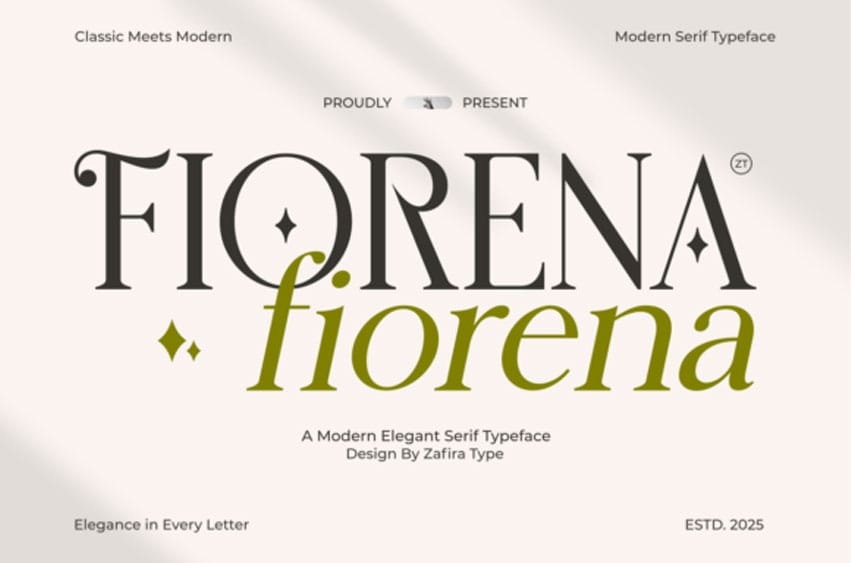
Fiorena Font is a sublime serif display font that merges the charm of classic artistry with contemporary flair.
Every individual letter in this font is meticulously designed, ensuring proportionate balance and delicately refined details.
Fiorena is the epitome of sophistication and opulence, enhancing any project it graces with an undeniable luxurious feel.
Bold yet elegant, this font is a versatile addition to your design arsenal, serving an array of purposes, be it crafting elegant brand identities, captivating editorial headlines, unique logos, romantic wedding invitations, appealing packaging, or captivating social media designs.
Fiorena retains exceptional legibility even at larger sizes, ensuring each message stands out, commanding attention while exuding an air of premium, high-end quality.
The Fiorena font is also PUA-encoded, ensuring effortless access to all glyphs, swashes, and alternate characters to help you customize your creations with ease.